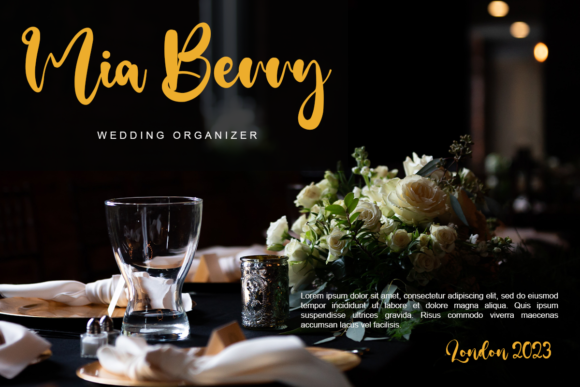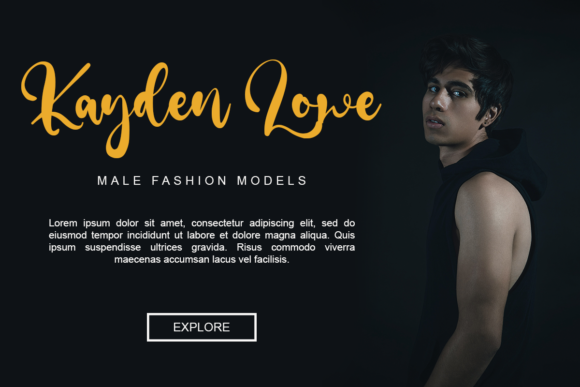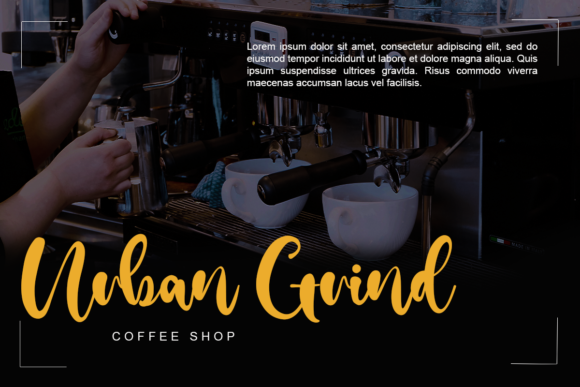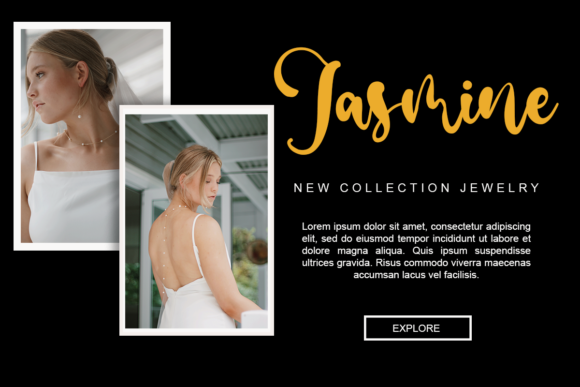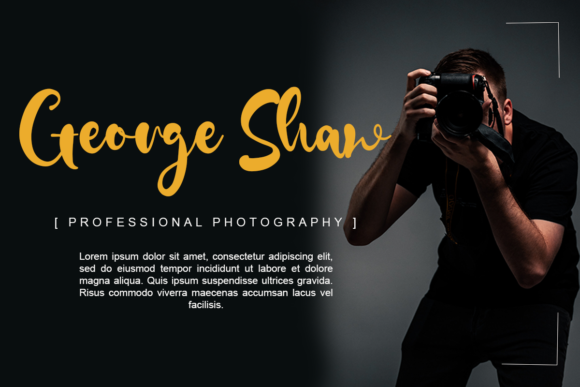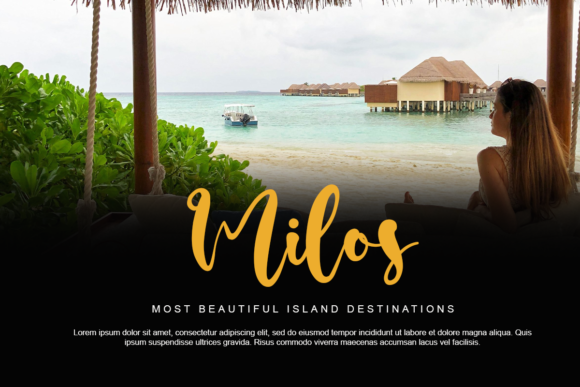
Discover the Timeless Charm of Denis Neal Font
You’ve spent hours pouring your heart and soul into a project, but something’s still missing – a touch of elegance, a dash of sophistication. That’s when you remember the magic of a well-crafted font. For designers, the right font can make all the difference between a project that’s just good and one that’s truly exceptional.
Enter Denis Neal Font, a masterfully designed handwritten font that effortlessly blends classic calligraphic influences with a modern, fresh vibe. Whether you’re working on a luxury brand, a high-end wedding invitation, or a bespoke business card, Denis Neal Font is the perfect companion to elevate your projects to new heights.
- Unique Characteristics: The font features a unique blend of modern and vintage elements, with a distinctive flair for script and cursive styles.
Denis Neal Font Review
After diving into the Denis Neal Font, I must say it’s an intriguing addition to any designer’s toolkit. ✨ The font’s unique blend of modern and vintage elements makes it perfect for projects that require a touch of sophistication and elegance.
The font’s versatility is one of its strongest suits. ✨ It can be used for a wide range of applications, from headings and titles to body text and even logos. The font’s clean lines and well-balanced proportions make it easy to read, even at smaller font sizes.
However, there are a few limitations that might make you think twice about using the Denis Neal Font. ⚠️ For one, it may not be the best choice for projects that require a lot of emphasis on boldness or drama. The font’s subtle design might get lost in more complex compositions.
- May not be suitable for projects that require bold or dramatic emphasis.
- Some users may find the font’s subtlety a bit too understated.
Overall, I’d say the Denis Neal Font is a solid addition to any designer’s toolkit. While it may not be the most flashy or attention-grabbing font, it’s a reliable choice for projects that require a touch of elegance and sophistication. With its versatility and clean design, it’s definitely worth checking out.
The Denis Neal Font is ideal for creating vintage, distressed, or retro-style designs. It’s also great for adding a touch of personality and whimsy to your text elements.